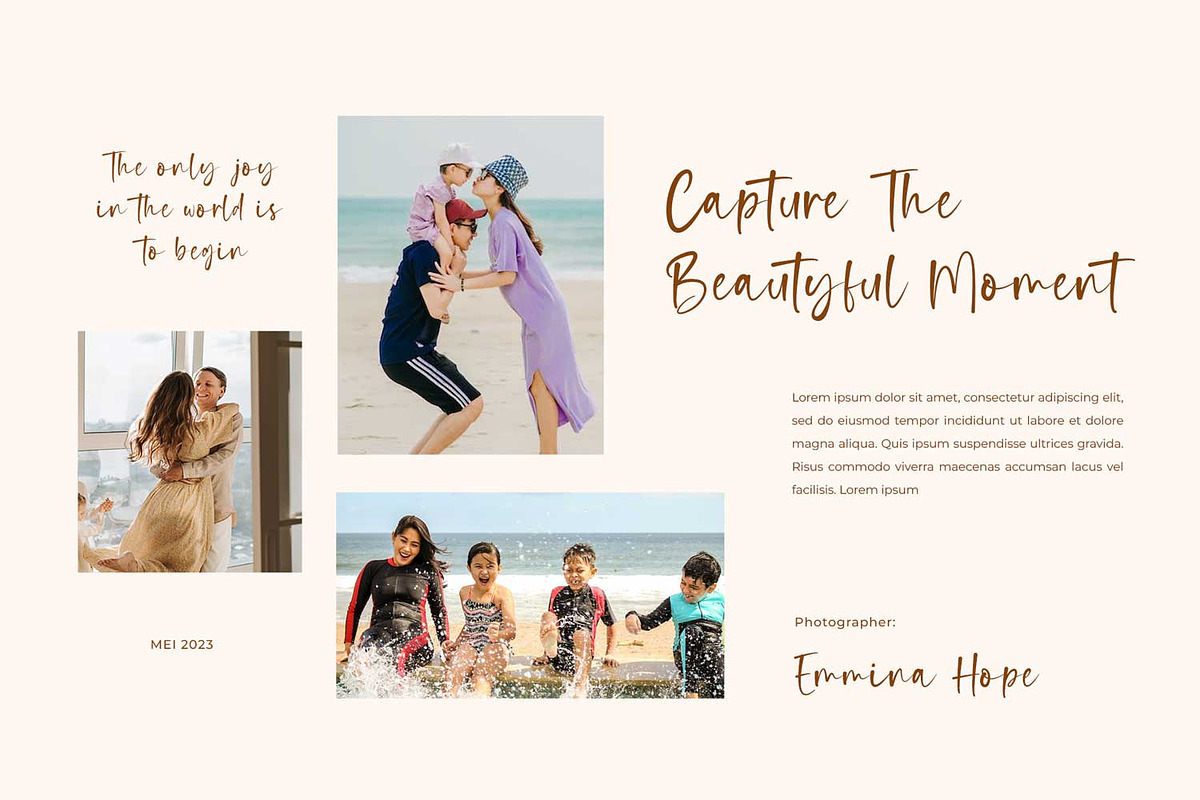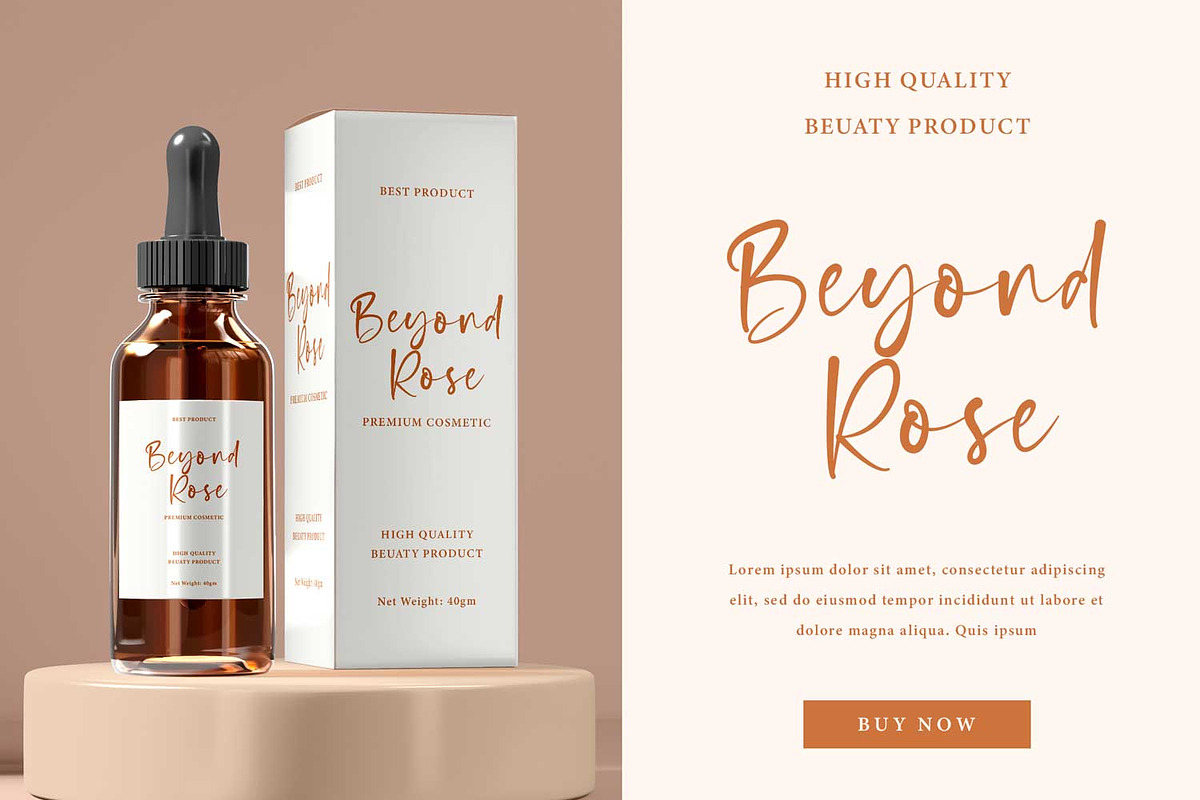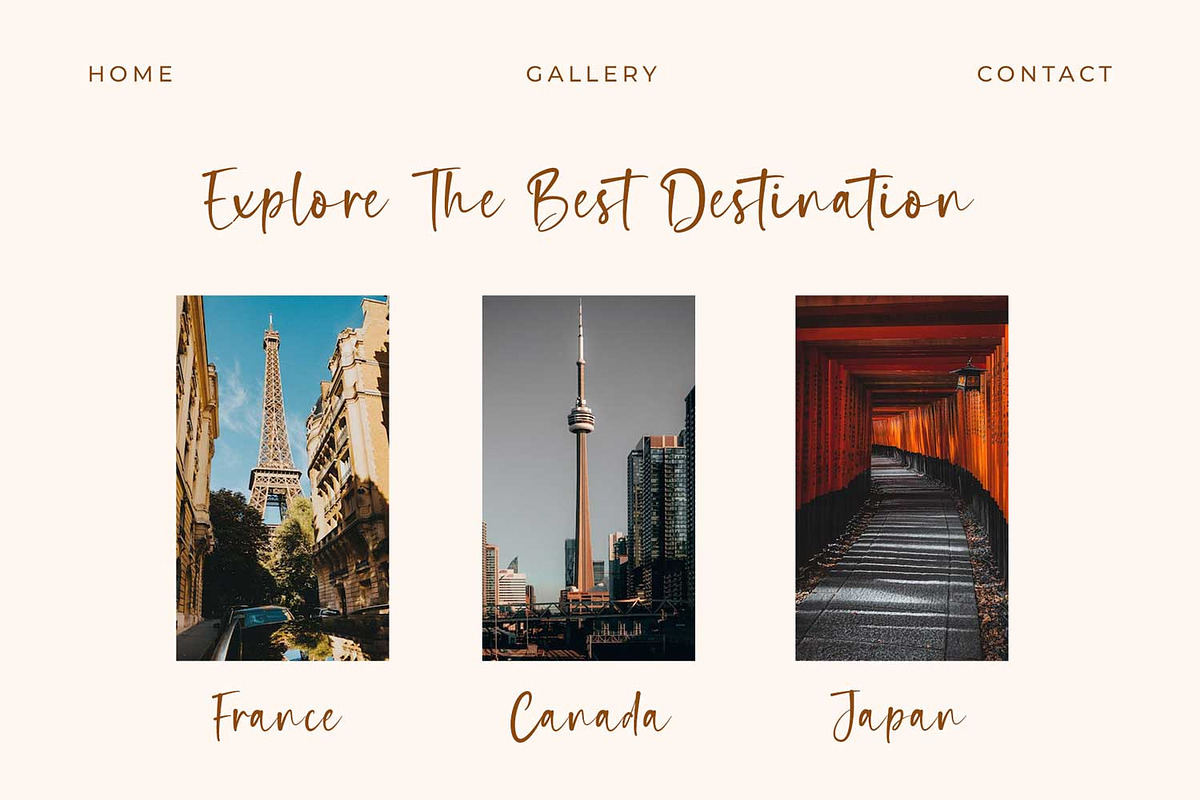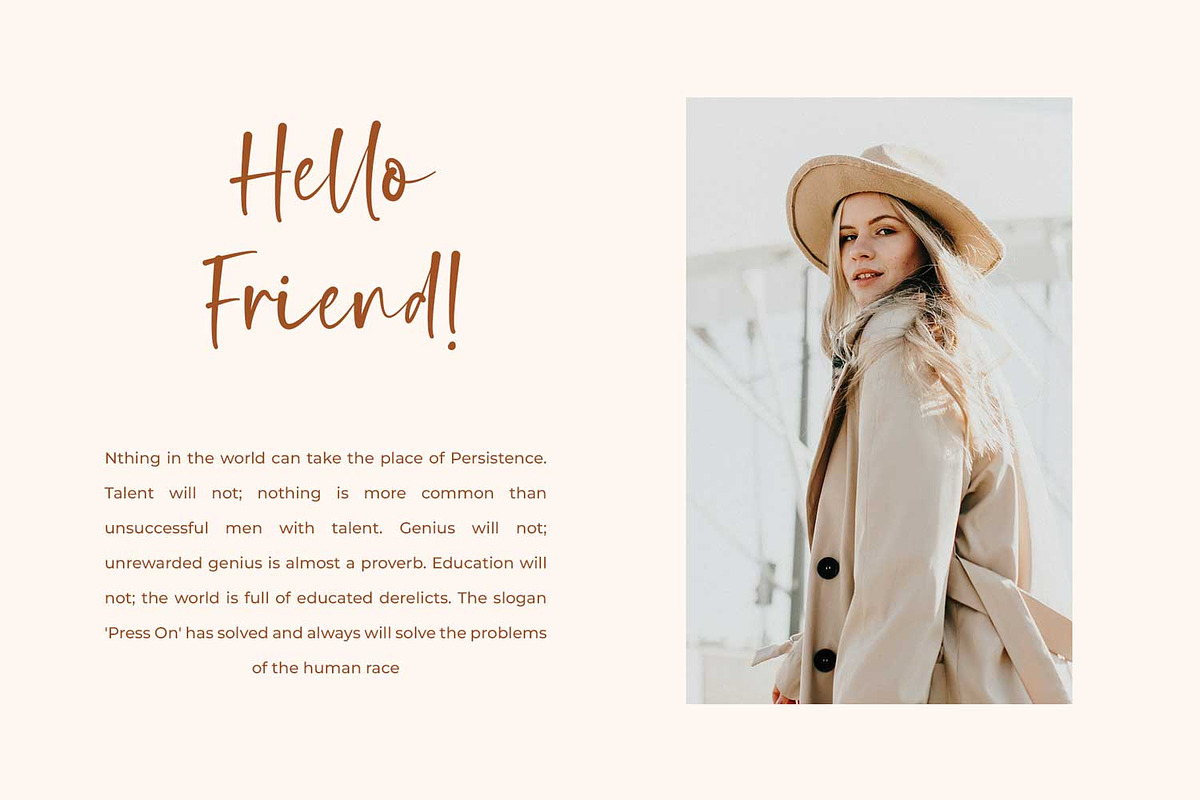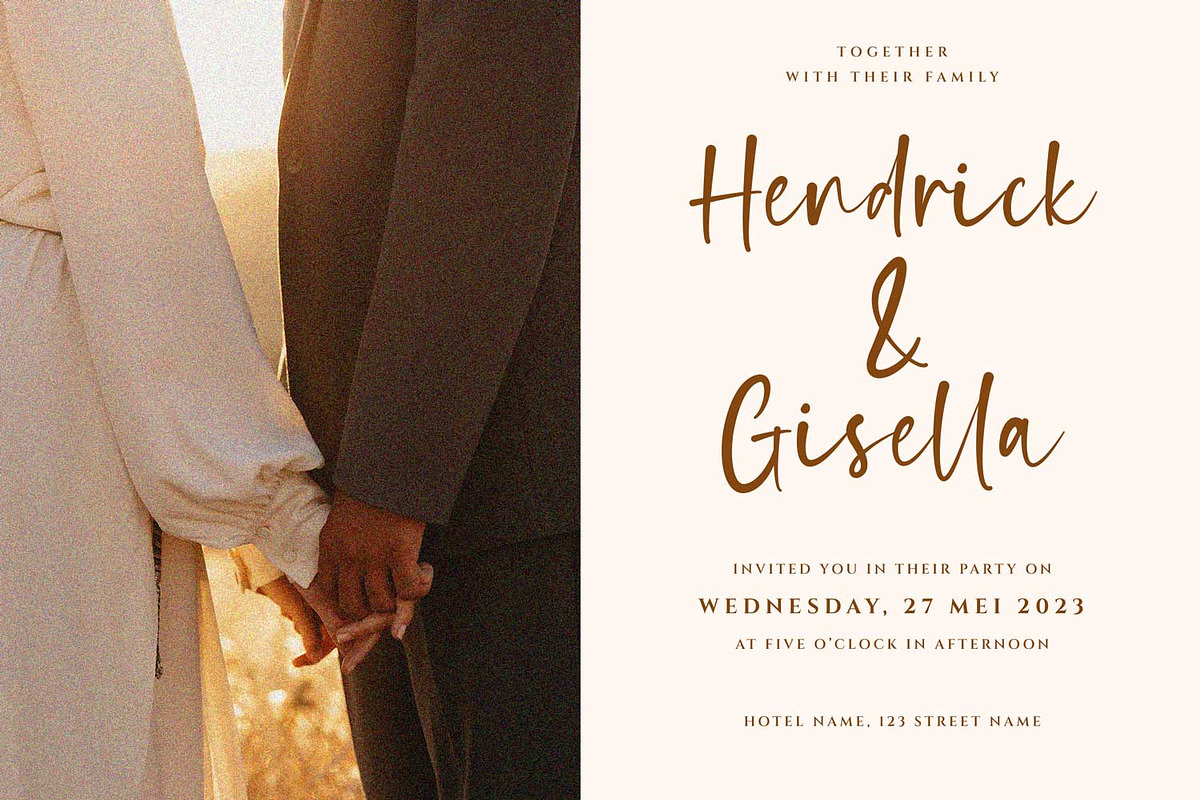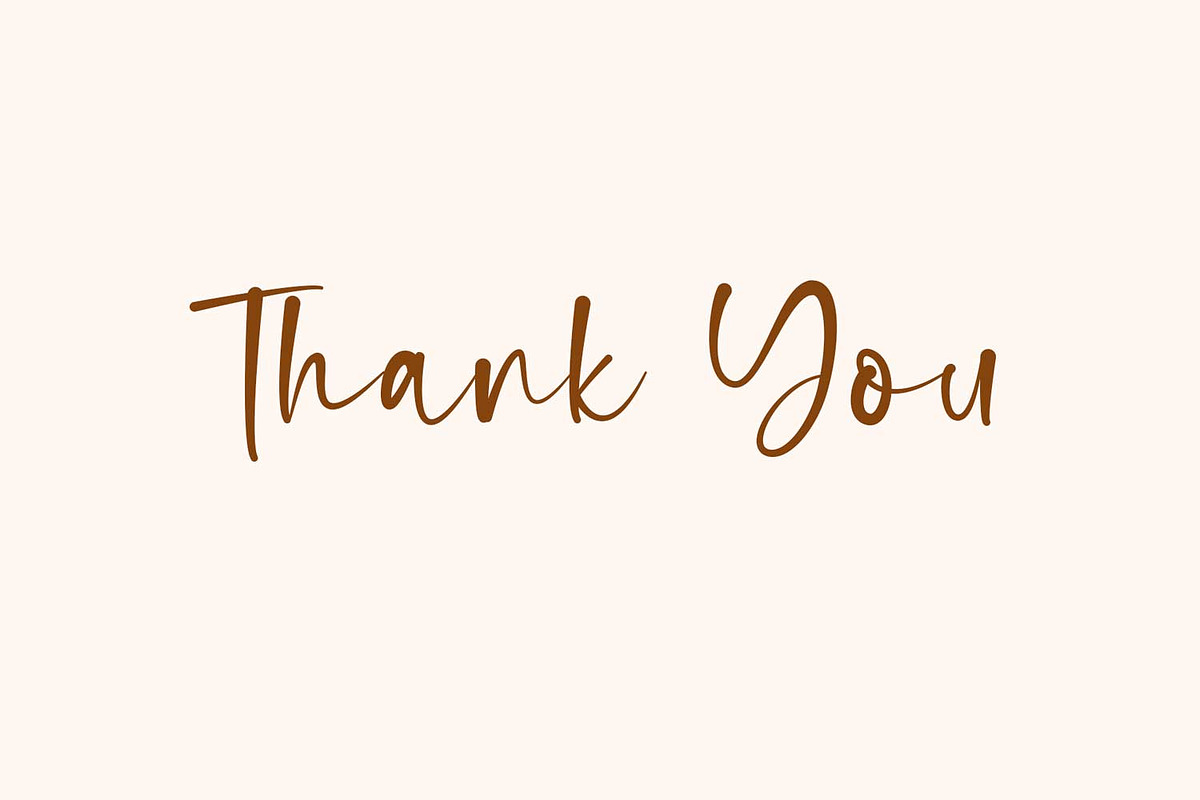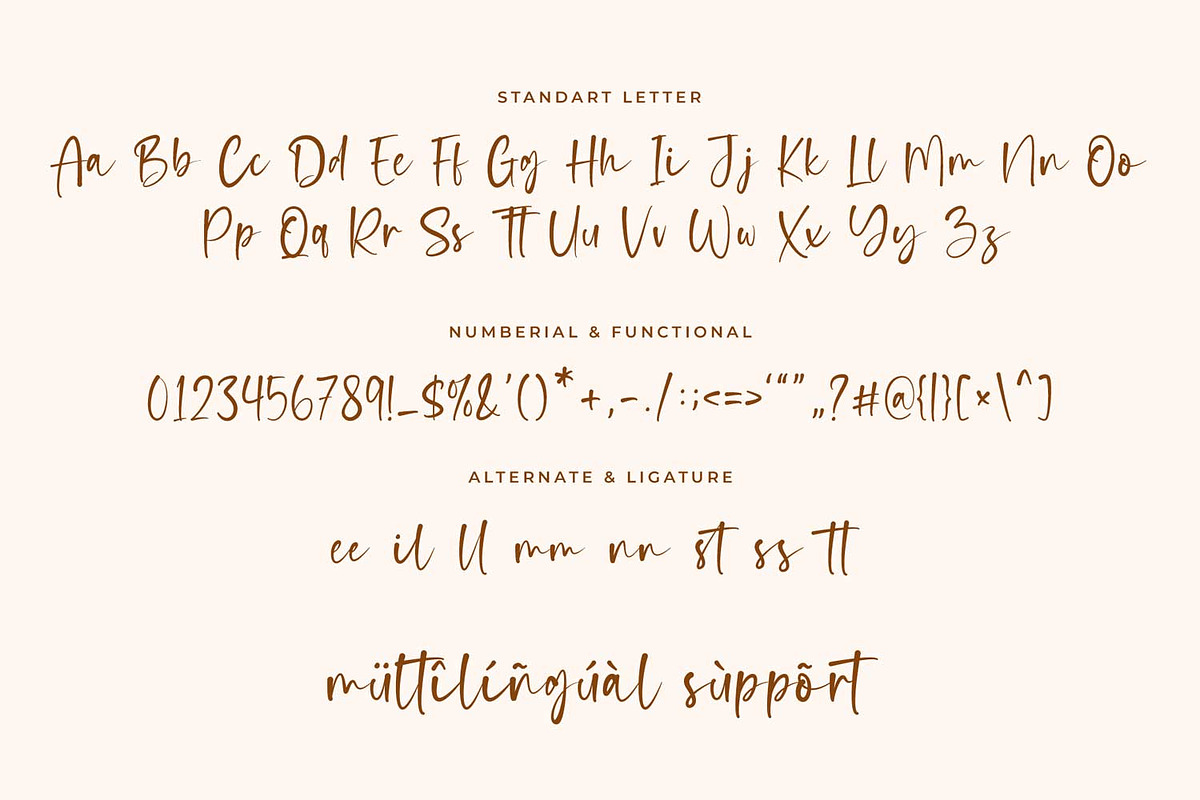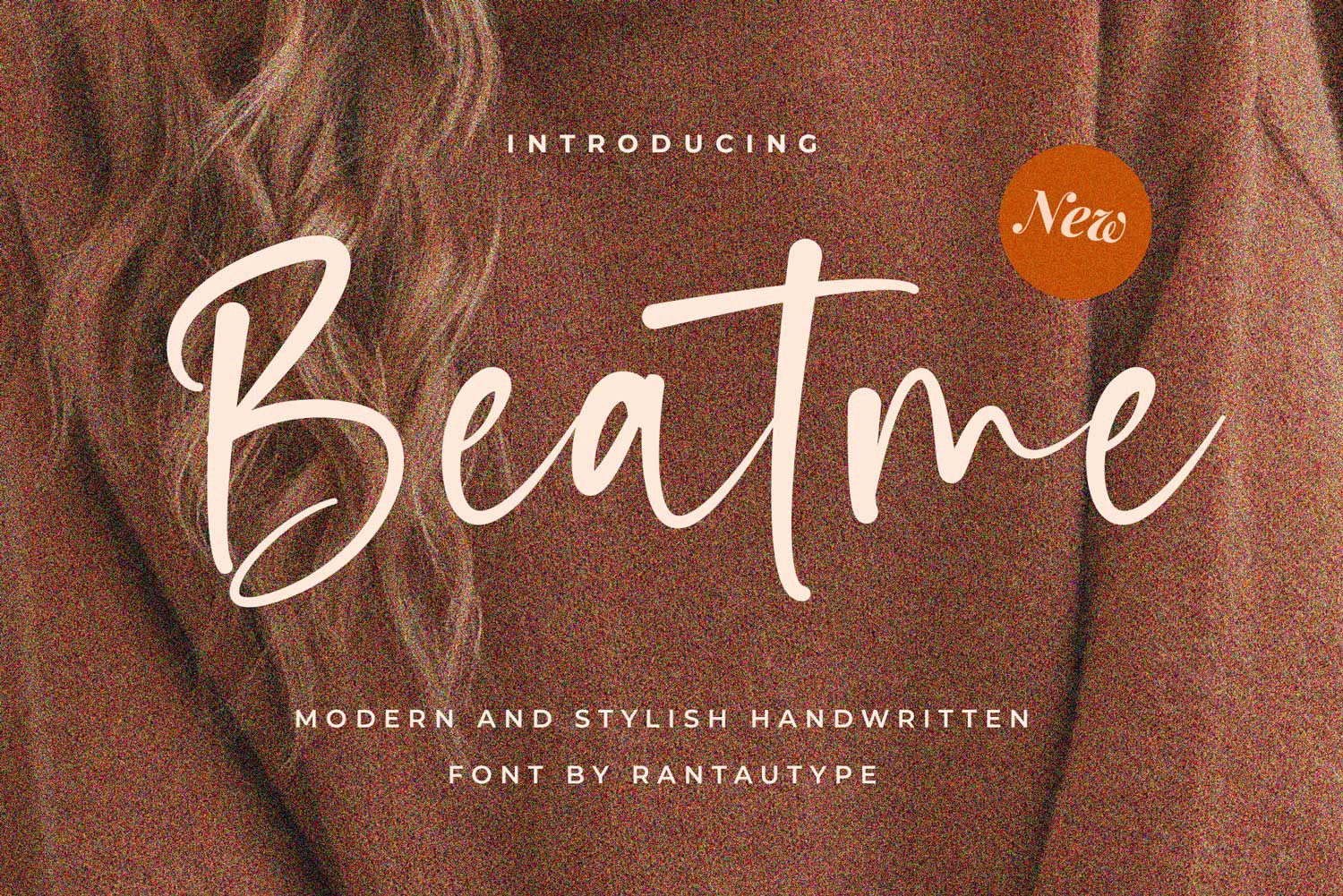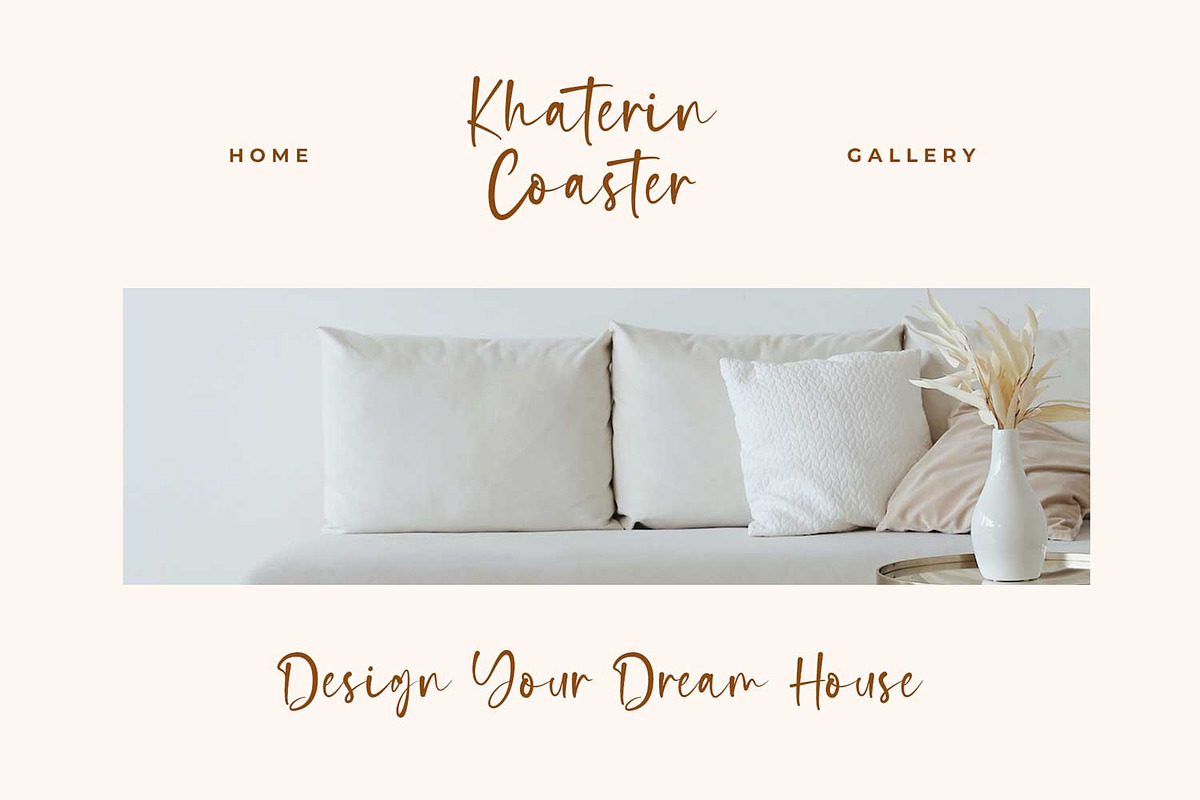
Beatme - Stylish Handwritten Font
Hi Ladies and Gentleman ! Proudly present script font Beatme. Every single curve has my personality touch. It is great for making logotype, branding, promotional ads, quotes design, packaging, t-shirt design. merchandise, poster, merchandise, social media and much more.
- Standart letter A-Z and a-z
- Numberial
- Functional
- ligature
- Multilinggual Support